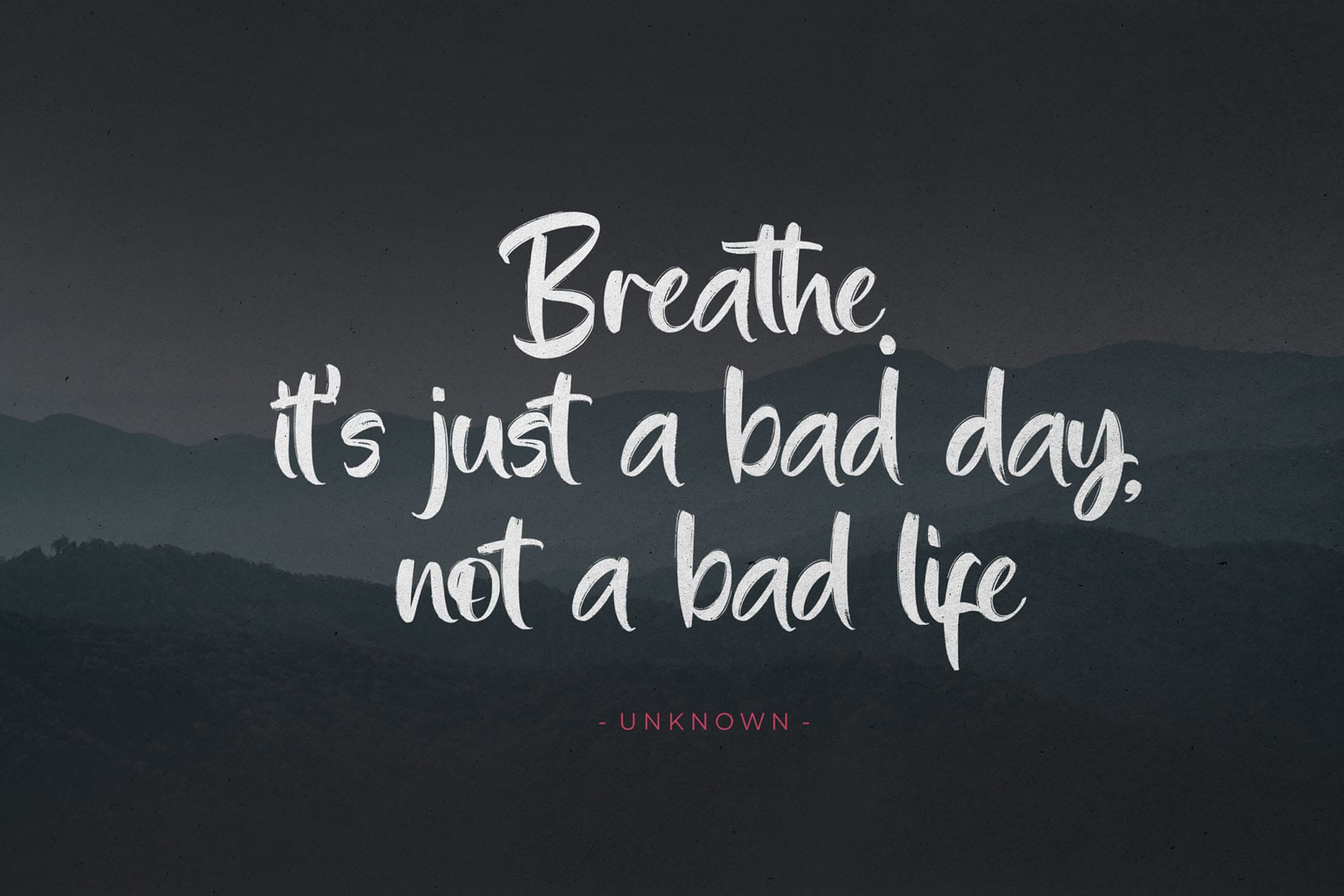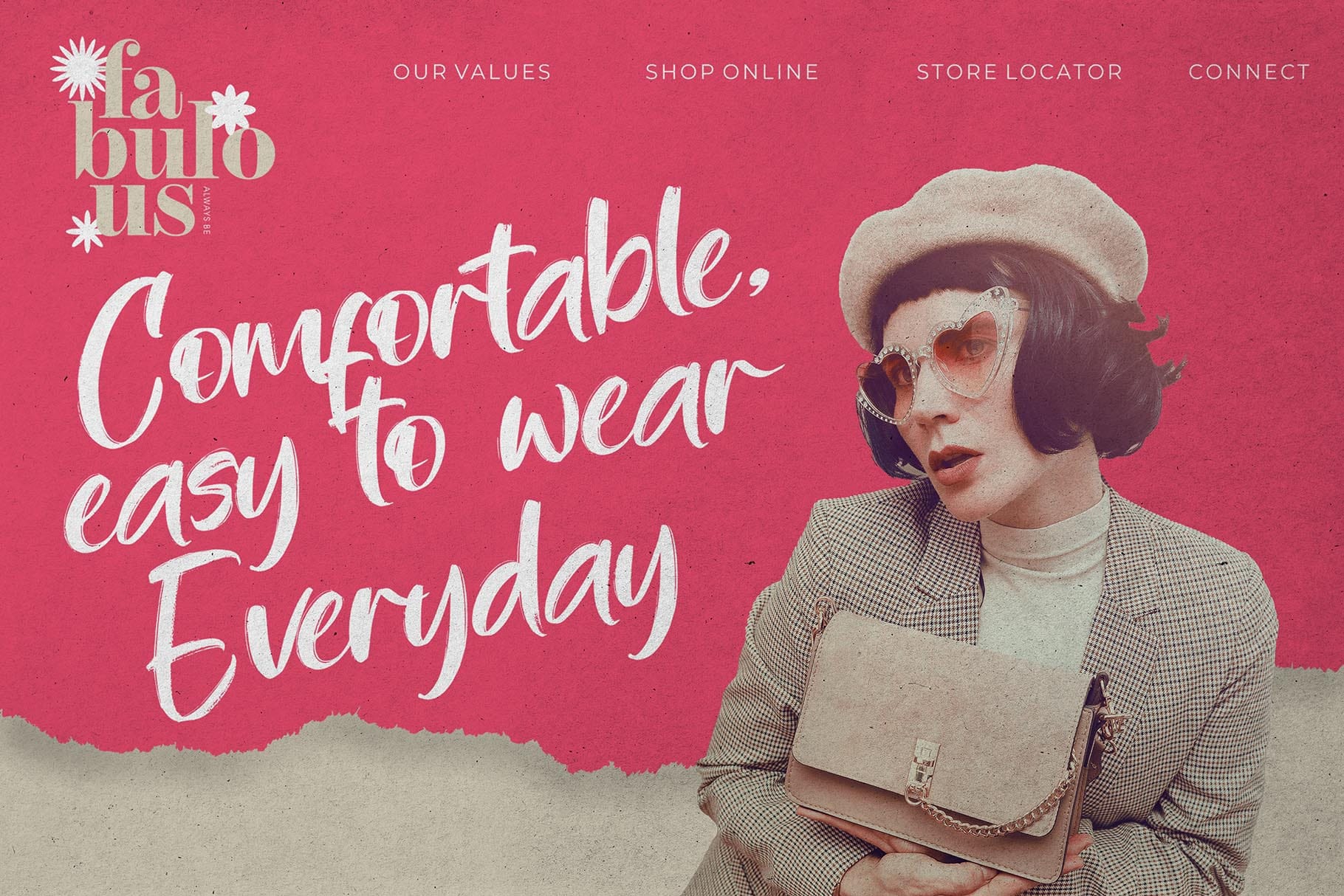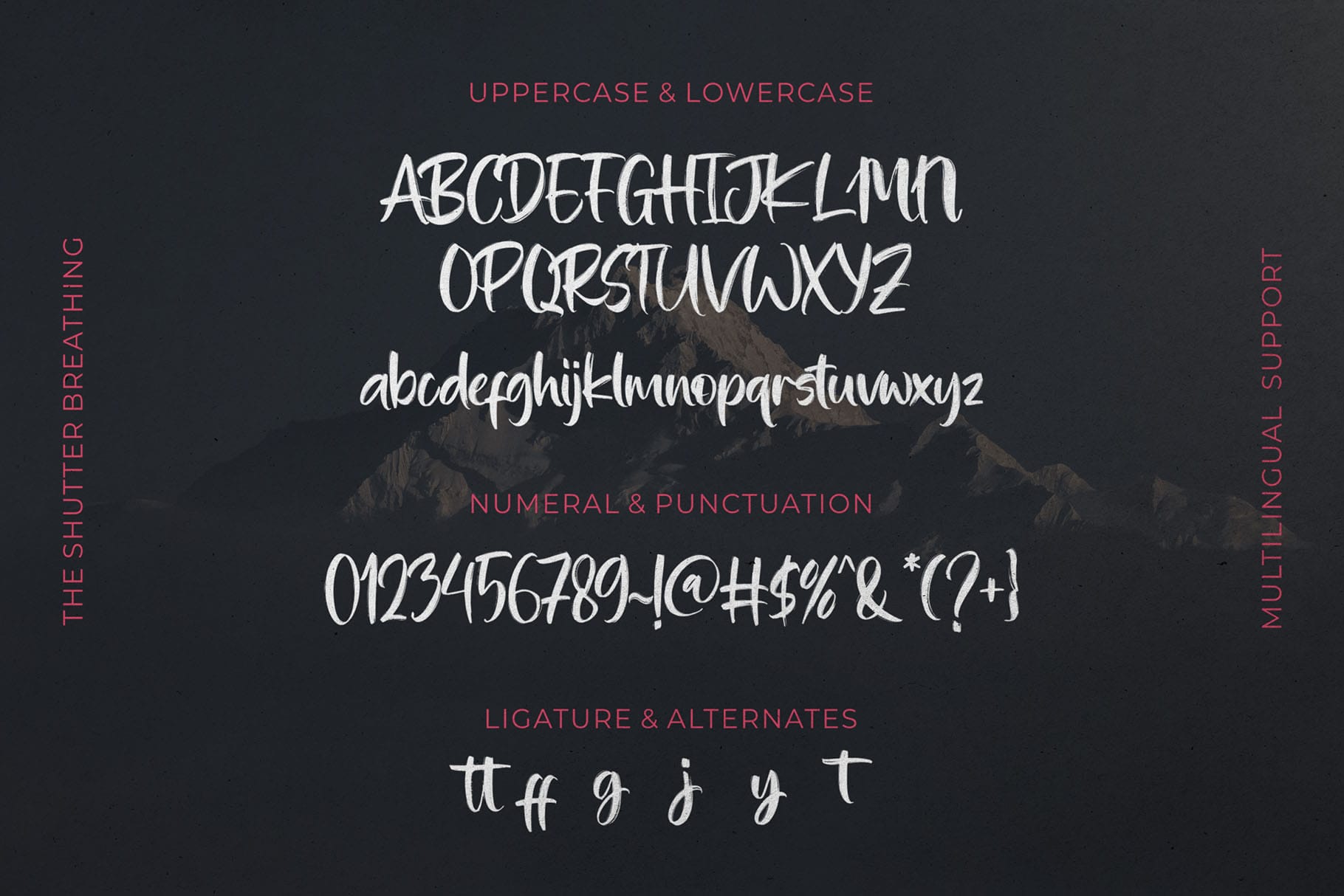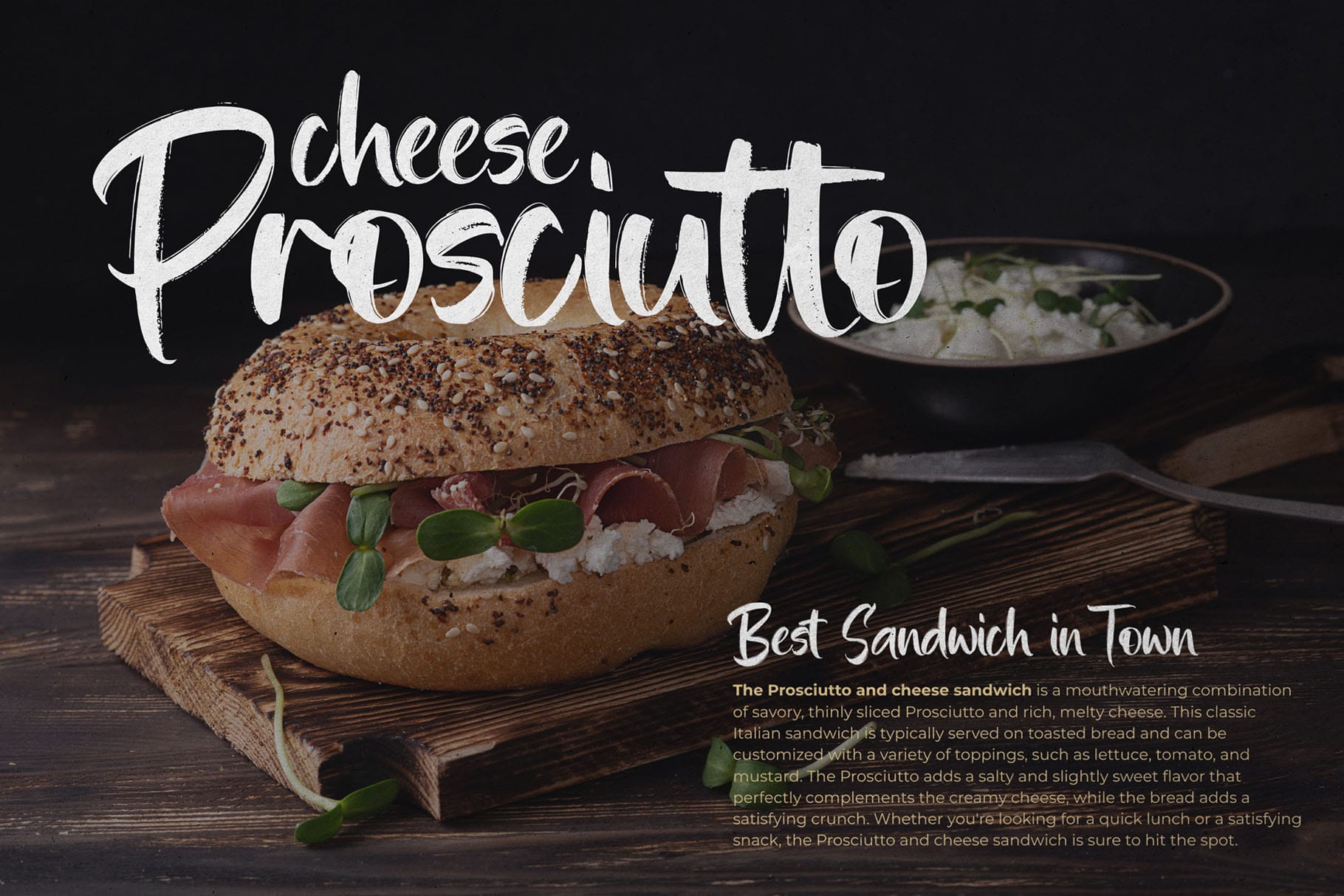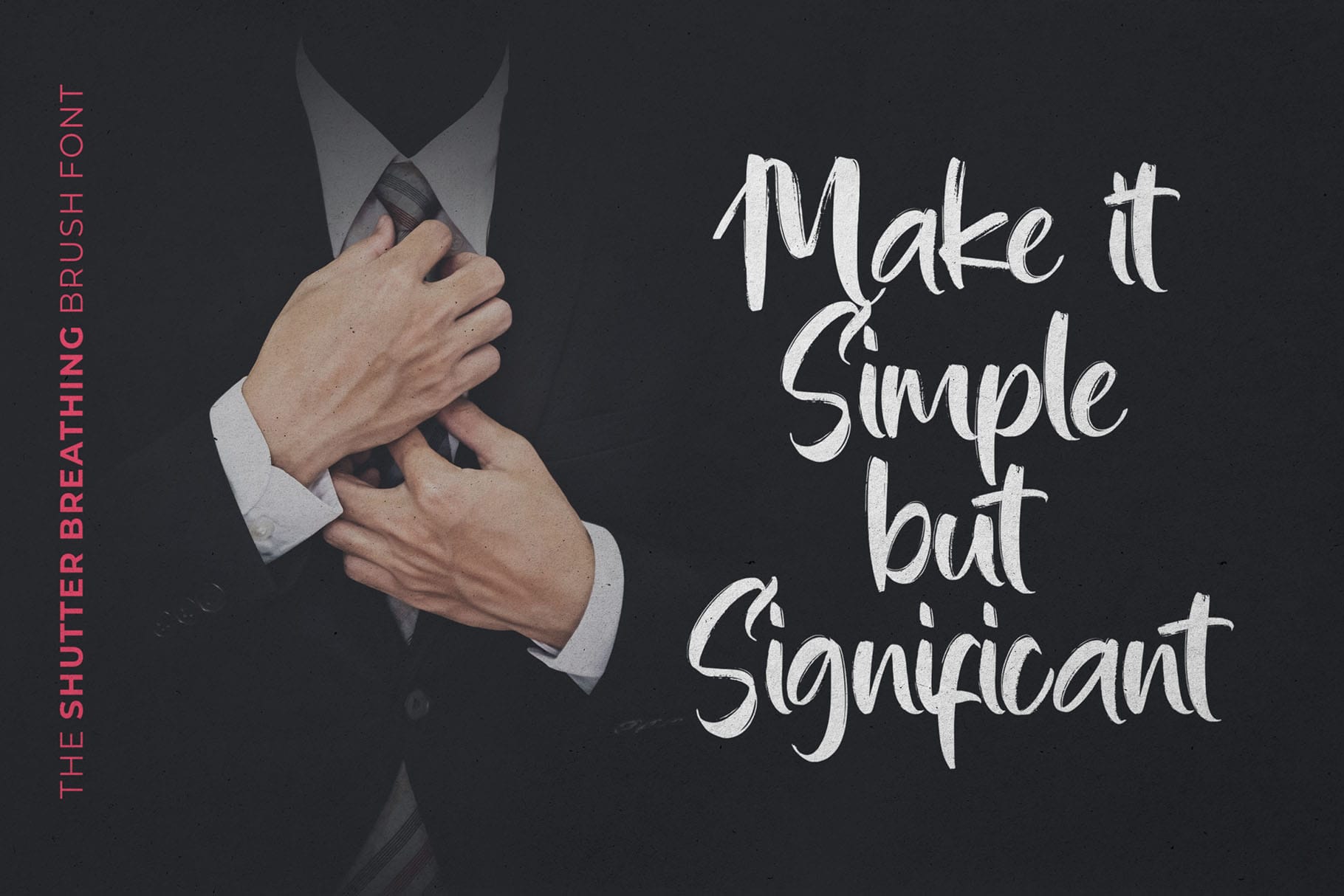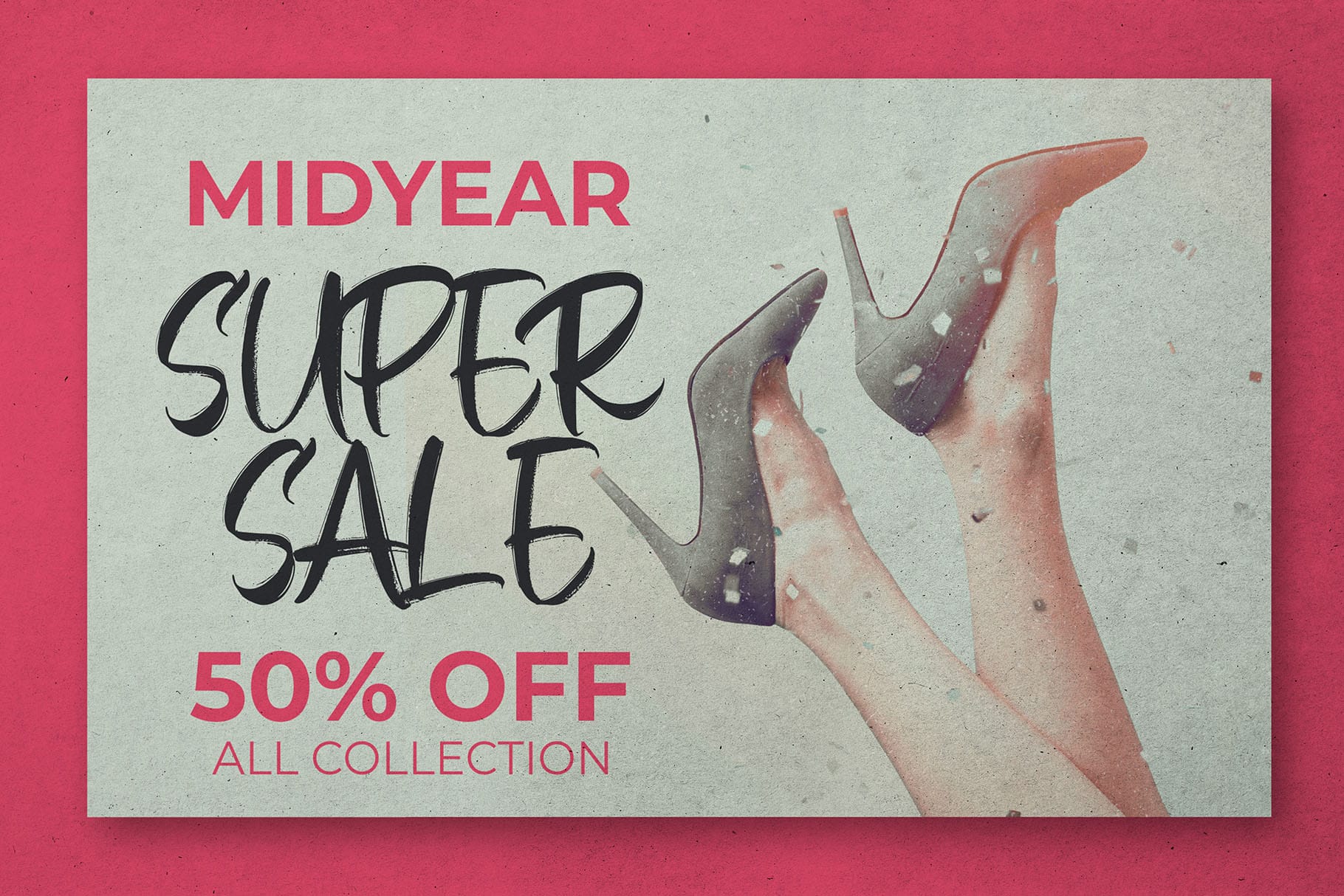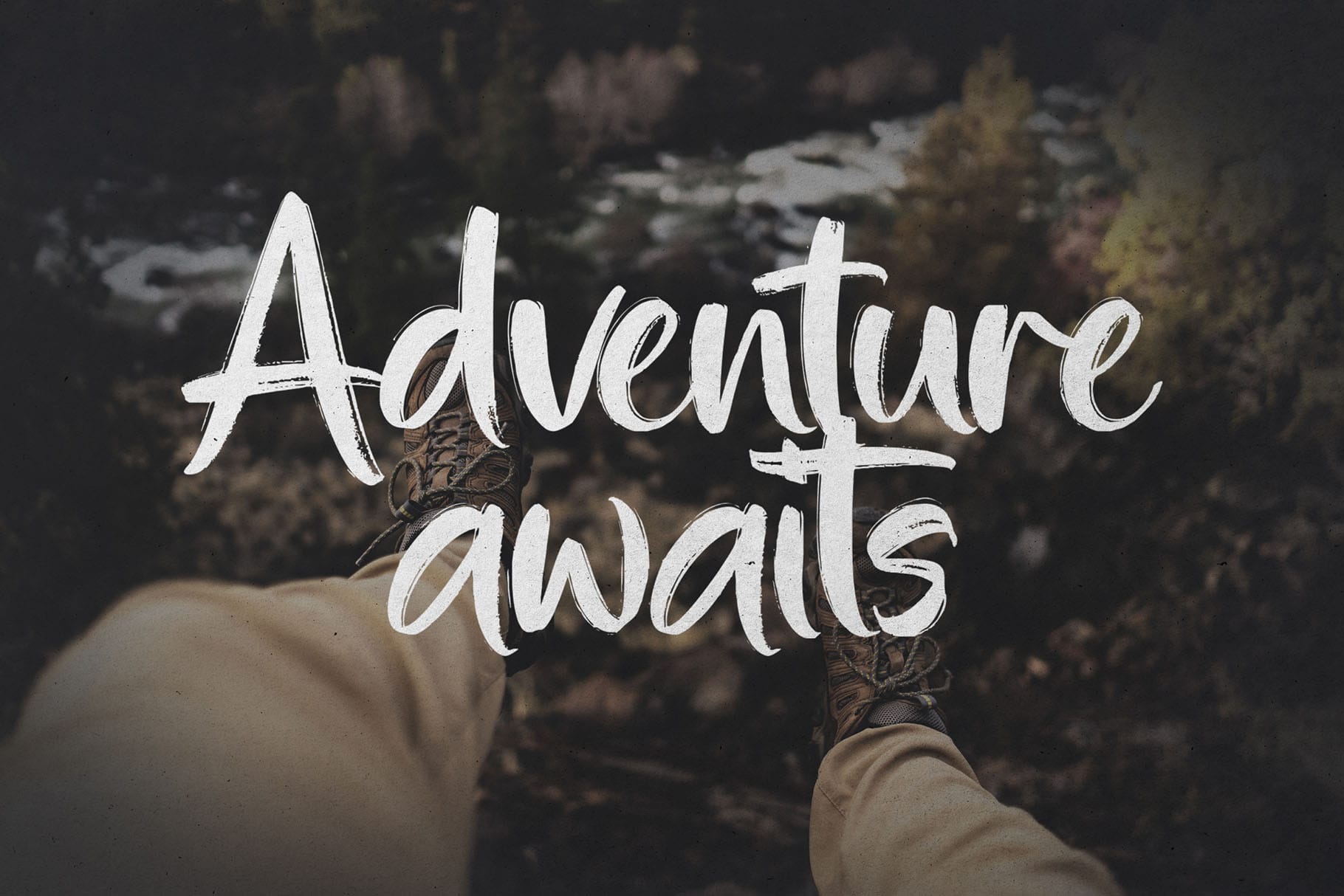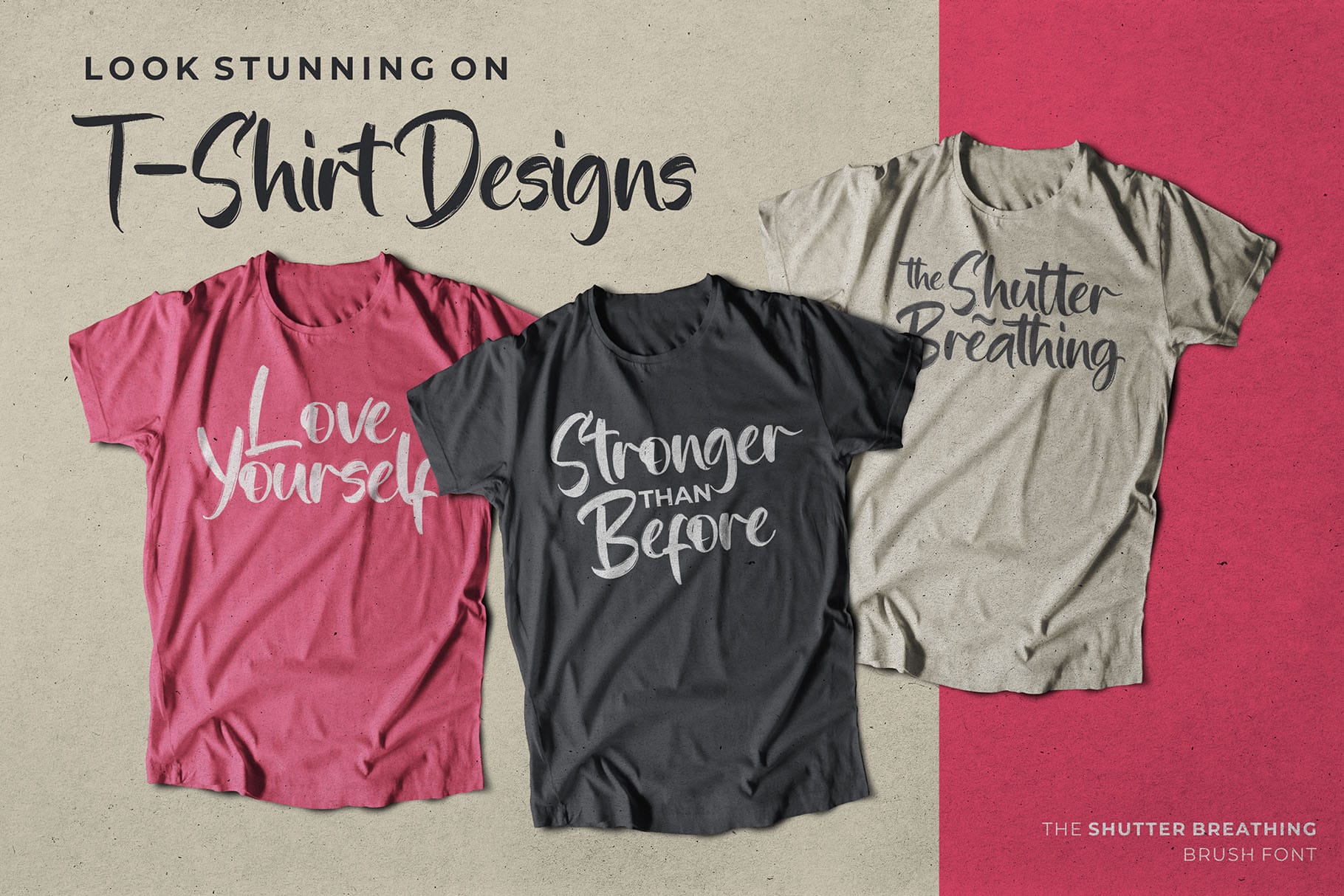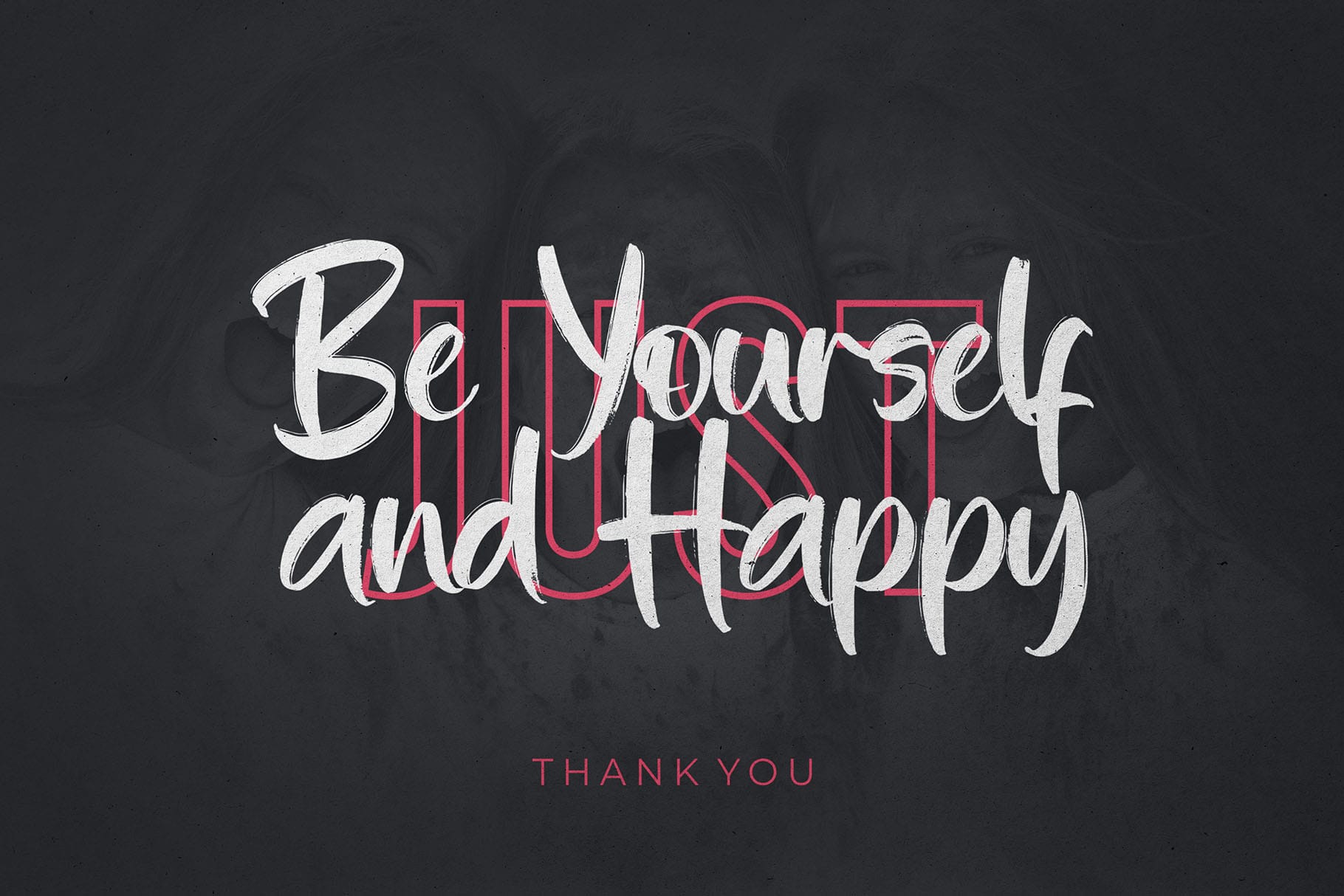
Shutter Breathing
Shutter Breathing Organic Brush Font for Expressive Creative Work
Shutter Breathing Organic Brush Font is made for designs that need movement, texture, and a handcrafted voice. With detailed dry brush marker strokes, this font brings an organic visual rhythm that feels raw, energetic, and personal without losing its practical value for real design projects.
It is a strong choice for designers, brand owners, content creators, packaging designers, apparel makers, and digital product sellers who want typography that feels expressive from the first glance. Whether you are building a bold headline, a product label, a poster, or a print-ready graphic, Shutter Breathing gives your words a confident handmade presence.
Shutter Breathing has an organic brush style with a dry marker texture. The strokes feel spontaneous, tactile, and expressive, making the font ideal for projects that need a human touch. Its visual personality leans bold and artistic, with enough character to make headlines feel alive.
The dry brush details add natural imperfections that help the typography feel less digital and more crafted. This makes it especially useful for branding concepts that want to look authentic, creative, adventurous, or independent.
Because the font includes stylistic alternates and ligatures, designers can create a more varied typographic flow while staying within the provided feature set. These details help reduce repetition in display text and make the composition feel more custom.
Best Use Cases
Shutter Breathing works beautifully for branding, headline design, and printed products. Its expressive brush texture makes it suitable for logo concepts, packaging labels, apparel graphics, posters, merchandise, social media visuals, quote artwork, and promotional materials.
For brand designers, it can help create a visual identity that feels handmade and memorable. For packaging designers, it can add energy to product names, labels, and limited-edition campaigns. For content creators, it can turn simple words into bold visual statements for thumbnails, reels, story graphics, or quote posts.
This font is especially effective when used as a display typeface. Use it for key words, short phrases, product names, titles, or attention-grabbing typography rather than long body text. Pair it with a clean sans serif or simple supporting font to keep the overall design balanced and easy to read.
Key Features
• Organic brush font style
• Detailed dry brush marker texture
• Uppercase and lowercase characters
• Numbers and punctuation
• Stylistic alternates
• Ligatures
• Versatile for branding, headlines, and printed products
Designers love brush fonts because they can bring personality into a layout quickly. Shutter Breathing is useful when a project needs a handcrafted look without building custom lettering from scratch. Its dry brush marker details give the design an expressive edge, while its uppercase, lowercase, numbers, and punctuation support practical everyday use.
The font is also useful for buyers who create products across multiple formats. A single type style can move from a logo draft to a poster, packaging label, shirt design, or digital promo graphic while keeping the same creative direction.
For creative studios, Shutter Breathing can work well in moodboards, campaign titles, visual identity explorations, and brand presentation mockups. For crafters and digital product sellers, it can help create printable quotes, stickers, wall art, labels, and merchandise graphics with a stronger handmade feel.